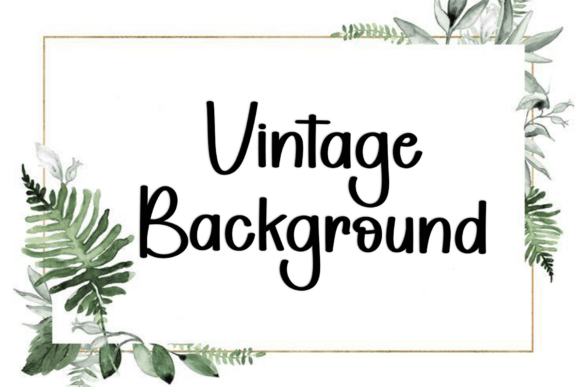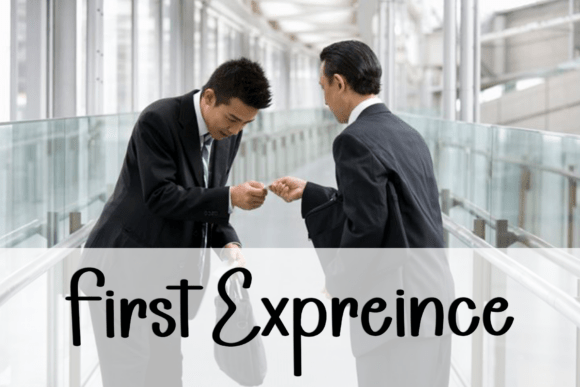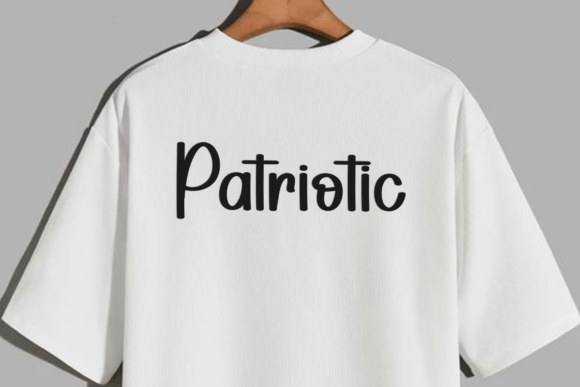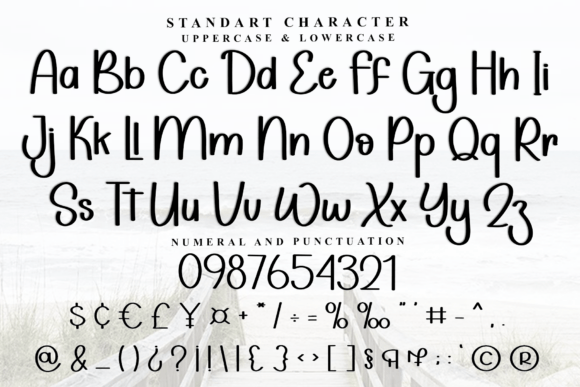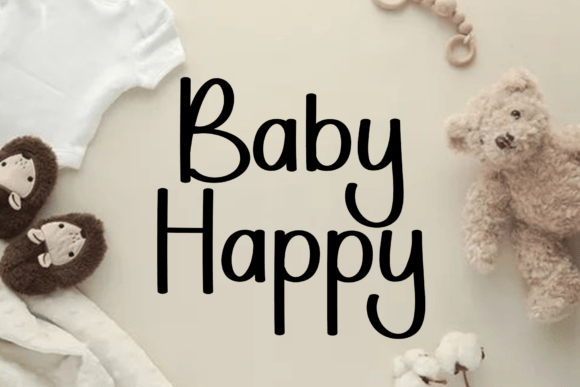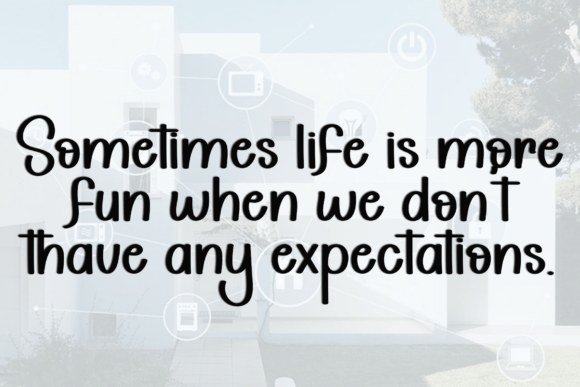
Introducing Creative Font: Elevate Your Designs with a Unique Touch
In the world of design, typography plays a crucial role in capturing the audience’s attention and conveying the message effectively. A well-crafted font can make all the difference in creating visually appealing designs that stand out from the crowd. This is where Creative Font comes in – a beautiful and eye-catching typeface designed with a soft, unique touch that is sure to elevate your designs to the next level.
The Distinctive Character of Creative Font
Creative Font boasts distinctive strokes that give it a special character, making it meaningful and versatile for future use. Its unique design ensures that your designs don’t go unnoticed, and its various characters make it perfect for a wide range of creative projects. Whether you’re working on a design project, crafting, or other creative works, Creative Font is the ideal choice.
Key Features of Creative Font
- Unique and Eye-catching Design: Creative Font’s soft and unique touch sets it apart from other fonts, making it perfect for designers who want to add a special touch to their work.
- Versatile and Meaningful: The font’s distinctive strokes give it a special character, making it meaningful and versatile for future use.
- Wide Range of Characters: The font features a wide range of characters, making it perfect for design projects, crafts, and other creative works.
Creative Font is a game-changer for designers and crafters who want to take their work to the next level. With its unique design and versatility, this font offers numerous benefits, including:
- Enhanced Visual Appeal: Creative Font’s eye-catching design ensures that your designs stand out from the crowd and capture the audience’s attention.
- Increased Creativity: The font’s unique touch and wide range of characters inspire creativity and allow you to experiment with different design ideas.
- Time-Saving: With Creative Font, you can easily create professional-looking designs without spending hours on typography.
Use Cases for Creative Font
Creative Font is perfect for a wide range of creative projects, including:
- Design Projects: Use Creative Font to add a unique touch to your design projects, such as brochures, posters, and business cards.
- Crafts: The font’s handcrafted feel makes it perfect for craft projects, such as handmade cards, gift tags, and scrapbooking.
- Digital Art: Creative Font is ideal for digital art projects, such as illustrations, graphics, and typography.
In conclusion, Creative Font is a beautiful and eye-catching typeface that is sure to elevate your designs to the next level. Its unique design, versatility, and compatibility with various applications make it perfect for designers and crafters who want to add a special touch to their work. With Creative Font, you can create visually appealing designs that stand out from the crowd and capture the audience’s attention.